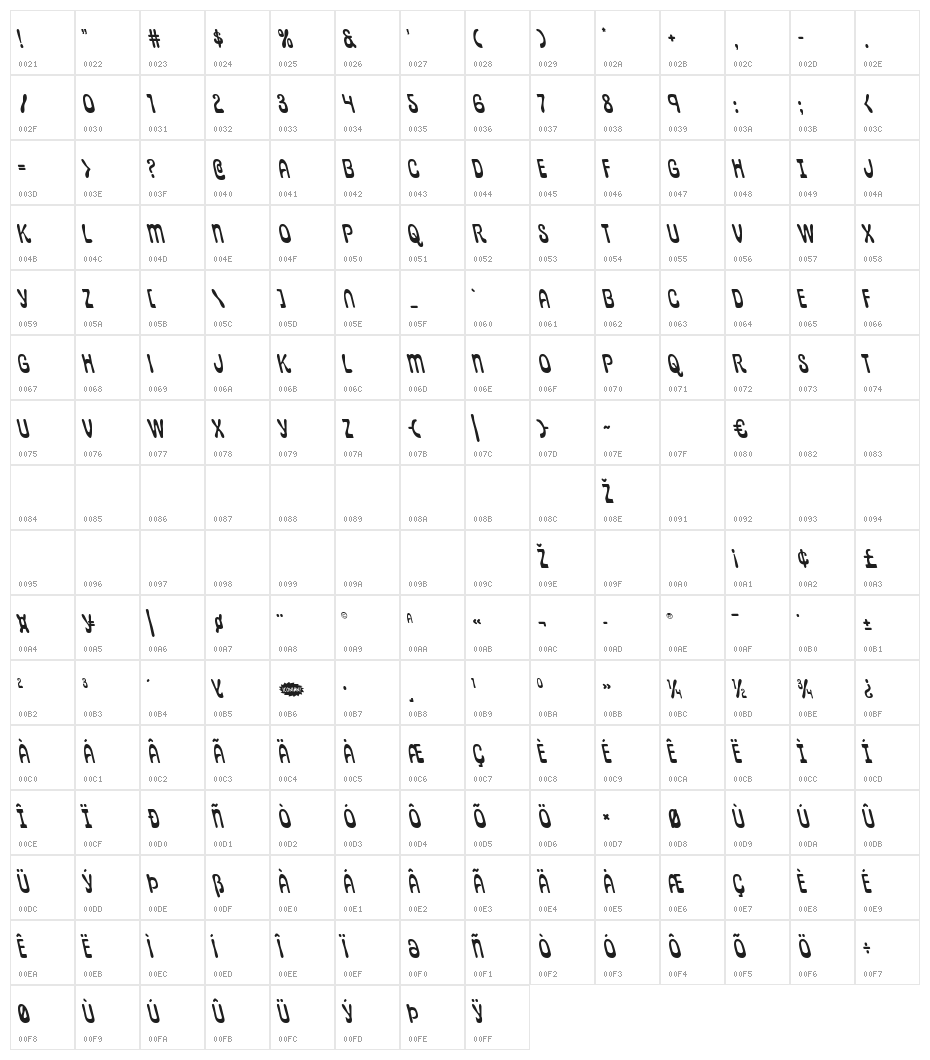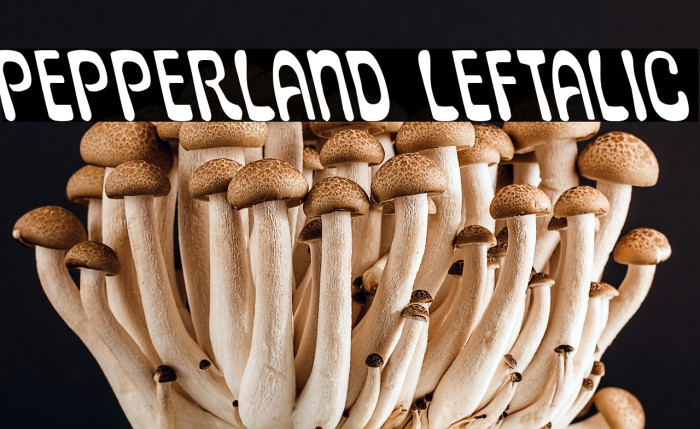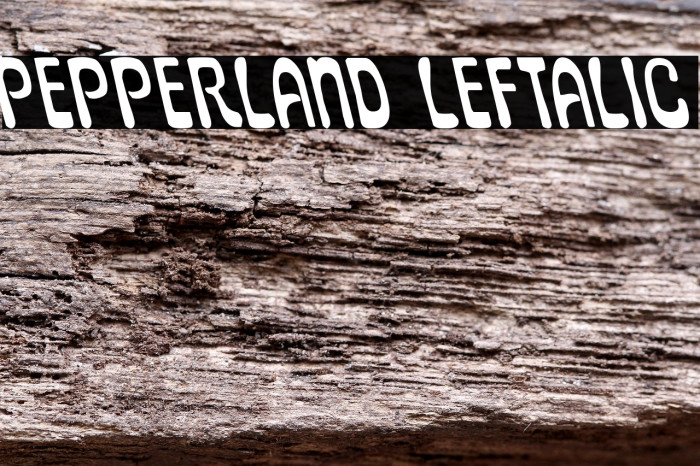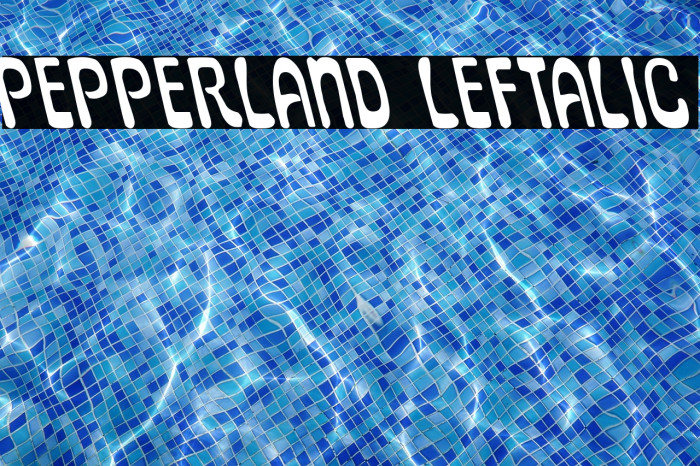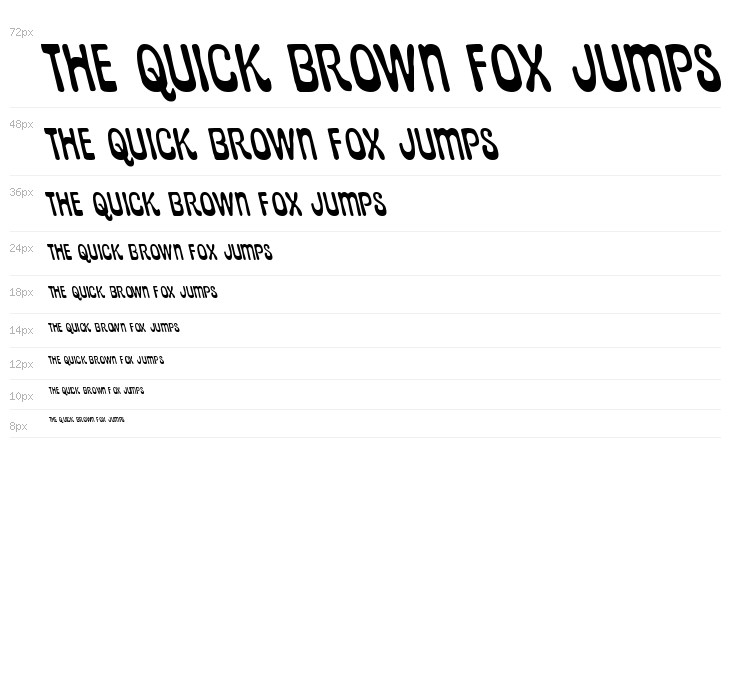
Pepperland Leftalic Font
Pepperland Leftalic Description
This font features a playful and quirky design with a leftward slant, giving it a dynamic and whimsical appearance. The characters are bold and rounded, with a consistent stroke width that adds to its friendly and approachable feel. The uppercase and lowercase letters maintain a uniform style, while the numerals and special characters are designed to match seamlessly. Its unique style makes it stand out, making it suitable for creative and fun projects.
| Proposed Projects | Ideal for children's books, playful branding, posters, and creative design projects. |